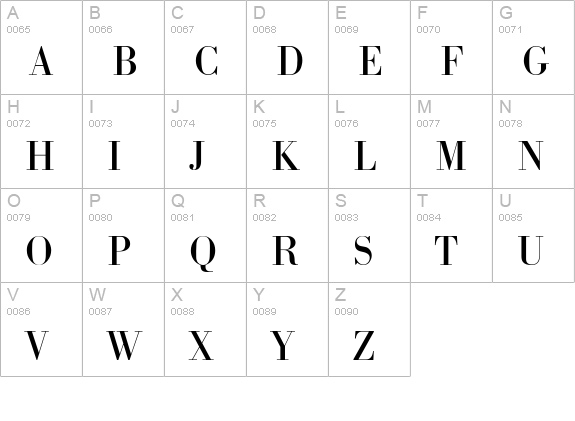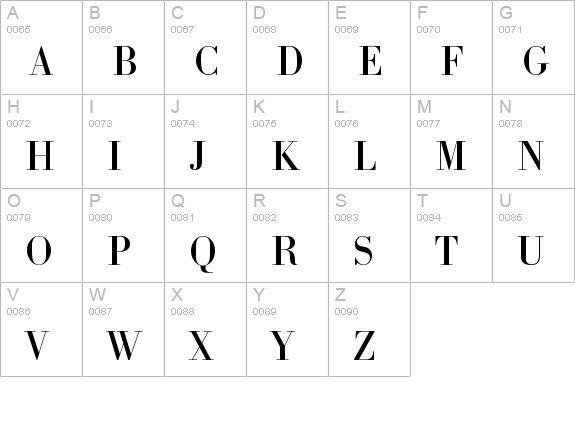
BodoniSerial-Regular is the standard, neutral variant in the BodoniSerial typeface family \xE2\x80\x94 well suited to general body text, paragraphs, and standard typographic work.
BodoniSerial-Regular font is a classic and elegant typeface that exudes sophistication and timelessness. With its clean lines and graceful curves, this font is perfect for creating refined and stylish designs. Whether you're working on a wedding invitation, a logo, or a magazine layout, BodoniSerial-Regular will add a touch of class to your project. The best part is that BodoniSerial-Regular font is available for free download at FontsMarket.com. This means you can easily access this beautiful font and use it in your creative projects without any cost. Don't miss out on the opportunity to elevate your designs with the timeless beauty of BodoniSerial-Regular font. Download it now and let your creativity shine!